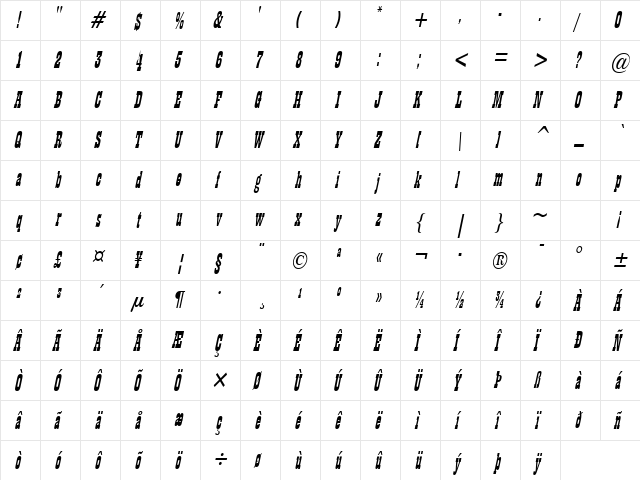
Billboard 11 Condensed Italic Font Preview
Design Context for Billboard 11 Condensed Typeface
Billboard 11 Condensed takes a measured approach to typography — its balanced proportions and neutral character make it a reliable workhorse for both digital and print work. The dynamic lean of this cut emphasises speed and emphasis in any layout. The condensed width makes it efficient for tight spaces without sacrificing legibility.
Pro Tip: Try Billboard 11 Condensed for annotation and caption copy alongside an upright companion — the contrast in angle creates a dynamic but ordered typographic system.